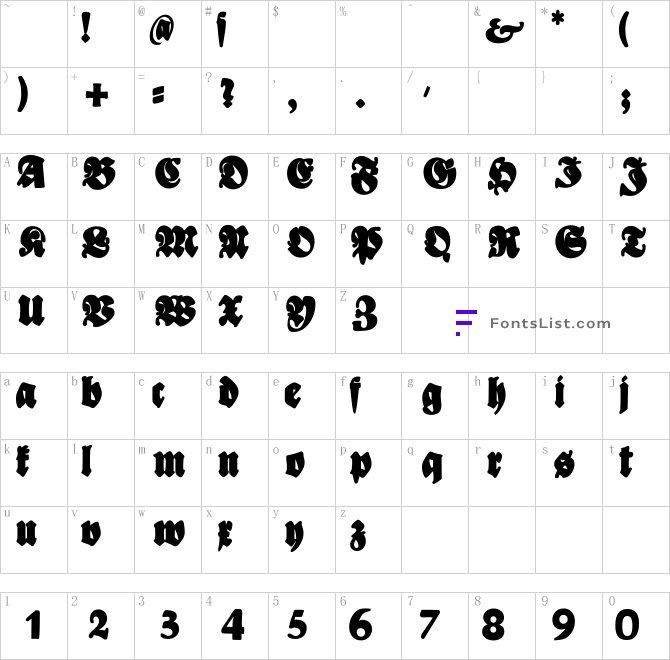
Bayreuther-BlaXXL.ttf is a very beautiful artistic font, Bayreuther-BlaXXL.ttf is widely used in the design and printing of various books and pictures,Bayreuther-BlaXXL.ttf has a strong visual impact,Bayreuther-BlaXXL.ttf is a commonly used font in newspapers, magazines and books, and is used in posters, e-commerce Poster design, store design, logo design, font design and other fields.Bayreuther-BlaXXL.